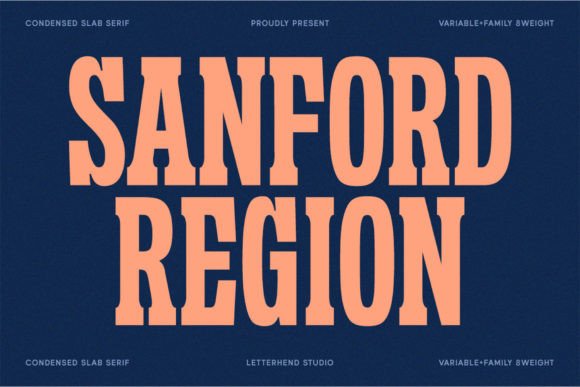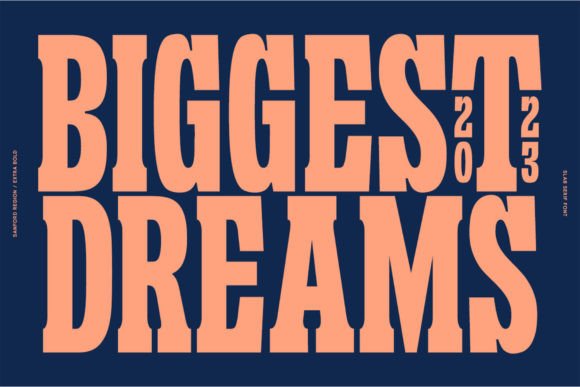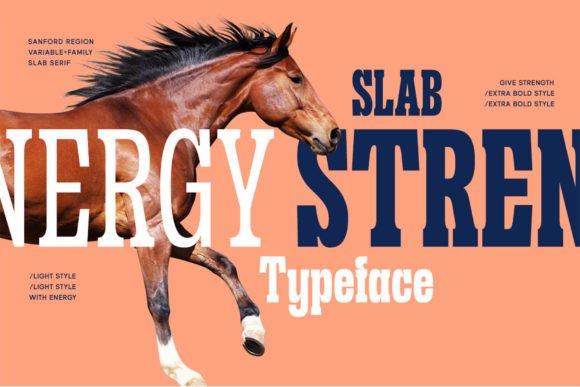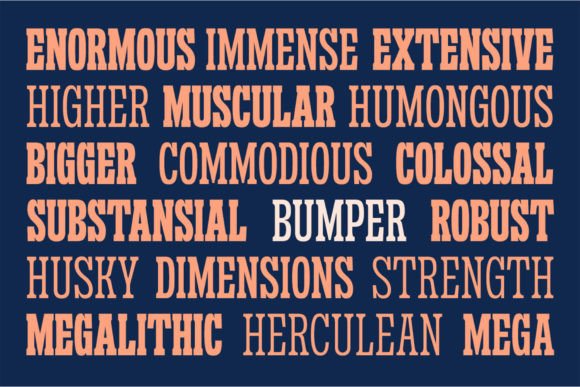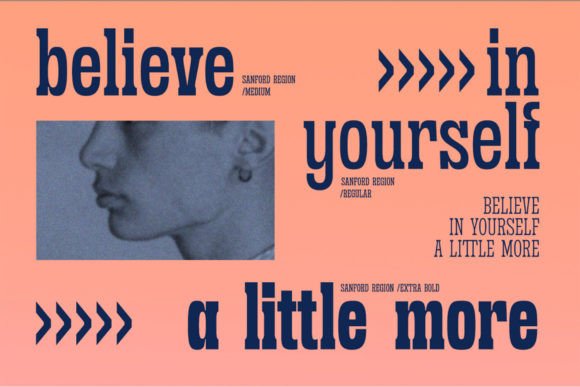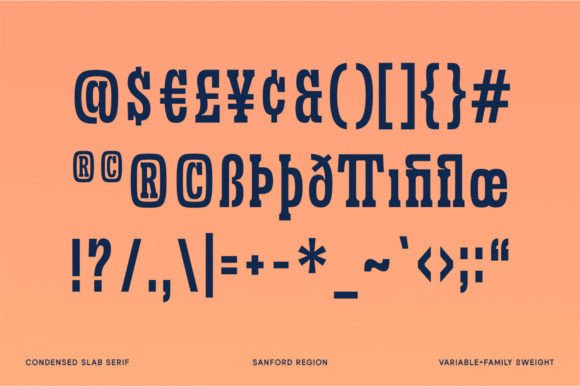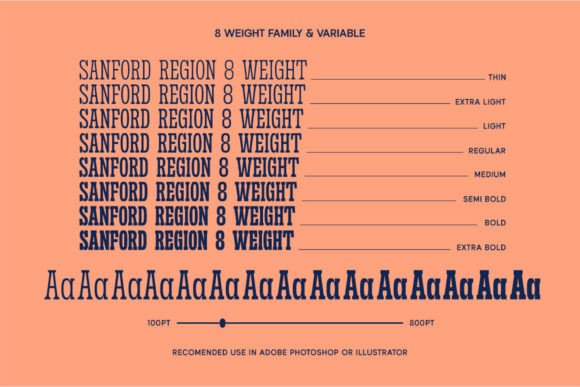
Sanford Region Font
Sanford Region is a condensed slab serif typeface with a strong look and feel. This font is perfect for logos, headlines, signage, and other various formal forms such as invitations, labels, magazines, books, greeting/wedding cards, packaging, fashion, make-up, stationery, novels, labels, or any advertising purpose.